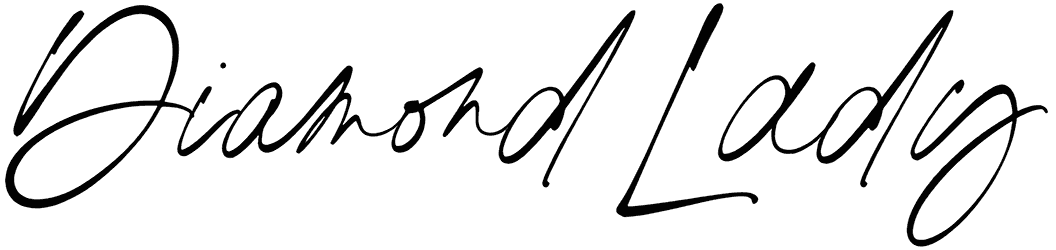
Diamond Lady Font
With this luxurious and elegant handwritten font, the words will become impressive, and your design will shine. The letters are smooth and delicate, which would be perfect for different modern or classic designs, like jewelry branding or a business card for a designer. Use the Diamond Lady font for your creative layout and make your name memorable.